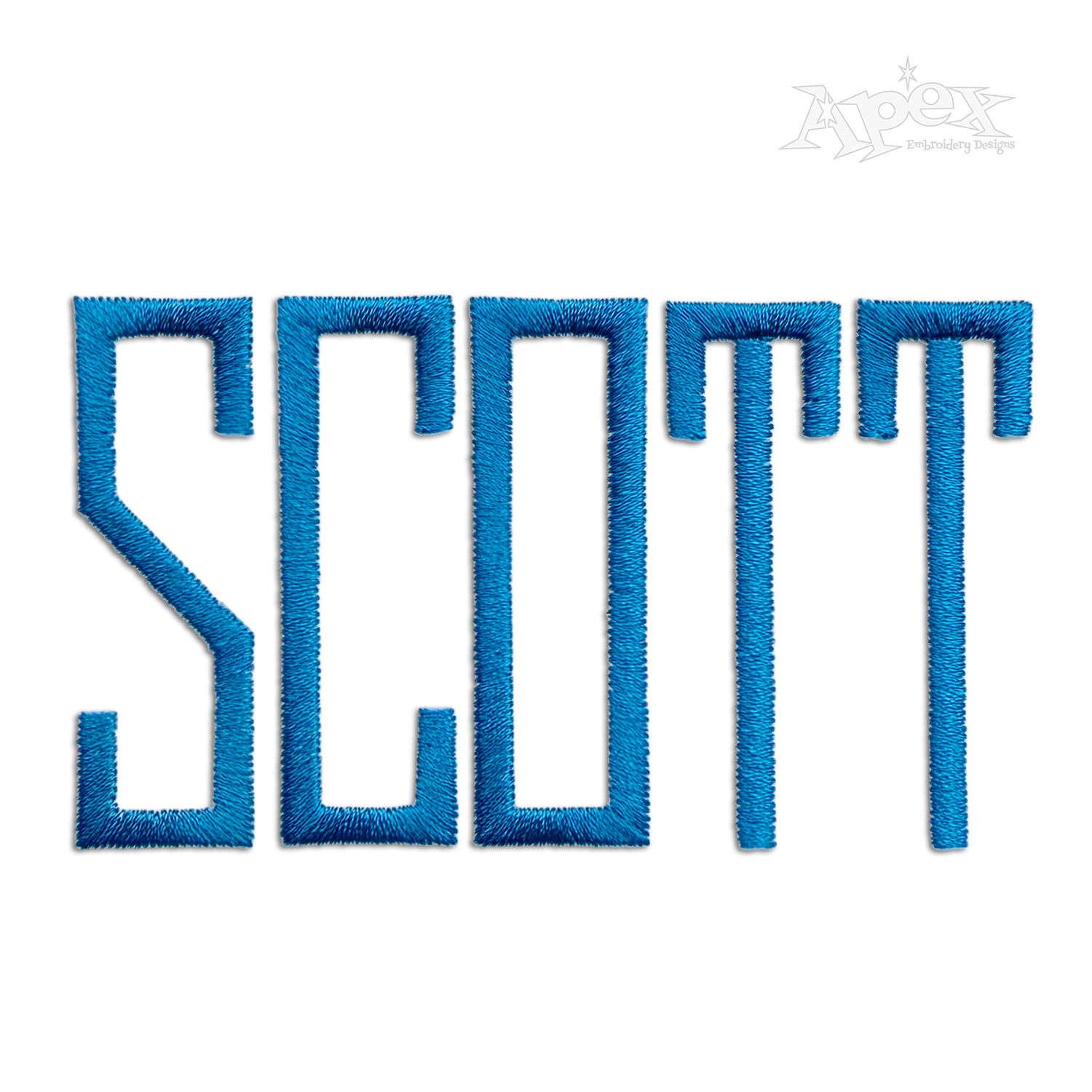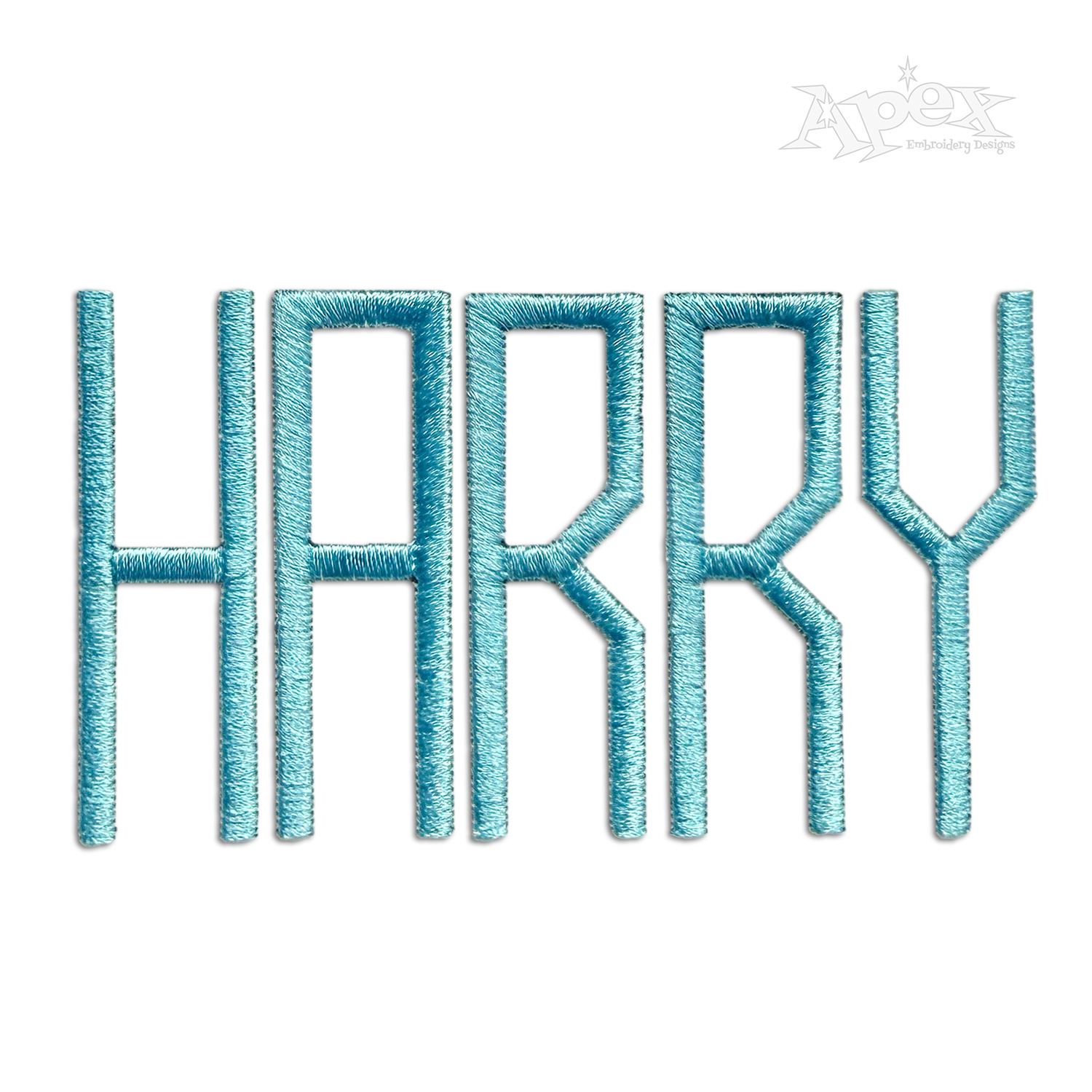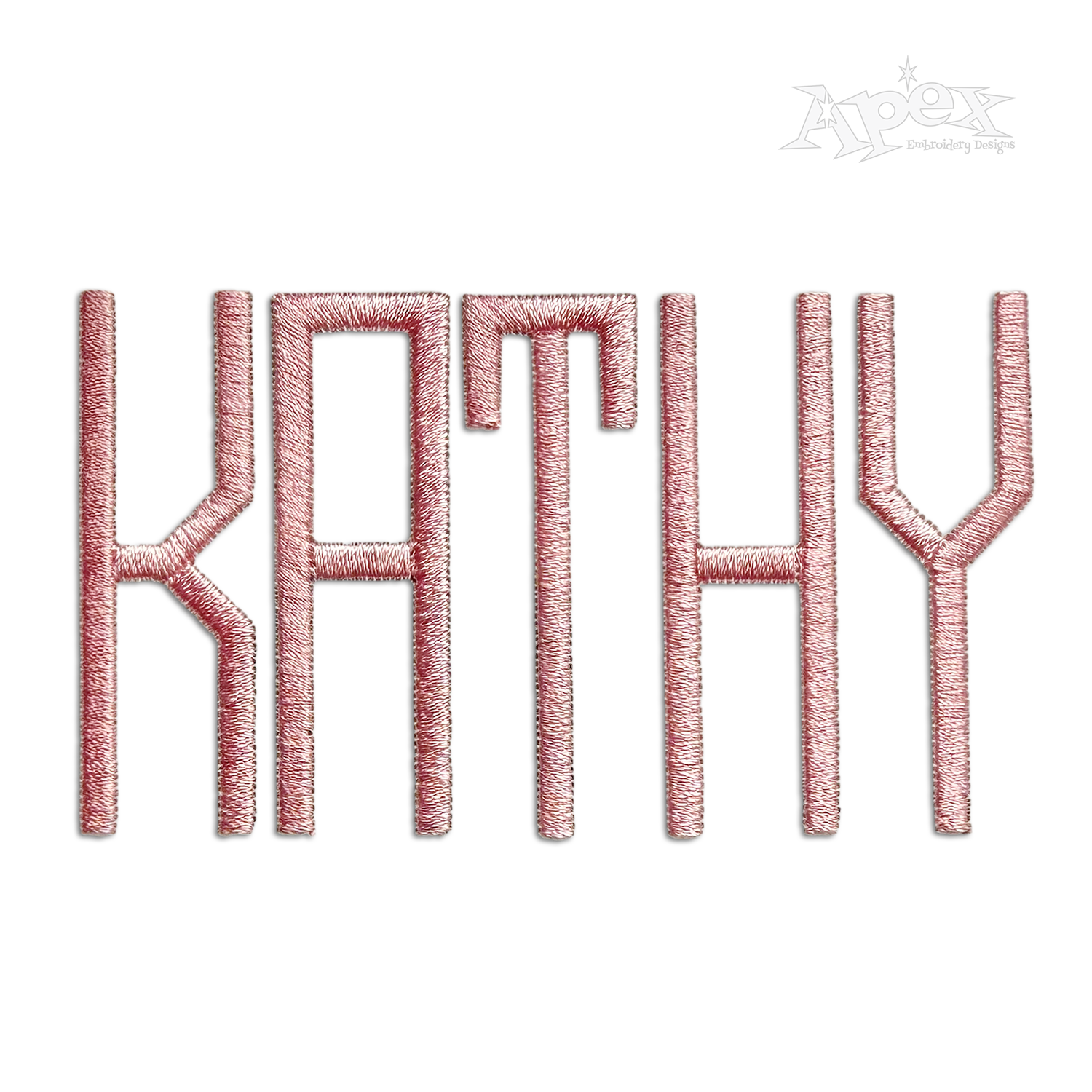
Mens Embroidery Font
There is an understated confidence in a silhouette stripped down to its leanest, purest lines. When drafting the Mens Embroidery Font at the Apex studio, our vision was sparked by the tailored precision of bespoke menswear and the crisp, utilitarian lettering of vintage collegiate gear. We set out to bypass fussy flourishes in favor of an athletic, architectural letterform?tall, upright, and impeccably balanced. Each letter rises with deliberate verticality, creating a modern satin stitch typography that feels just as commanding on a heavy canvas duffel as it does refined on a crisp linen handkerchief or tailored Oxford cuff.
Digitized with meticulous precision, this alphabet collection delivers bold readability in a condensed, space-conscious footprint:
- 2.2 Inch Uppercase Alphabet: Full A?Z uppercase letterforms calibrated at a 2.2-inch vertical height, ideal for bold standout initials and condensed monograms.
Project Ideas for Mens Embroidery Font
The disciplined geometry and tall, condensed aesthetic of this typography make it exceptionally versatile across everyday accessories, athletic goods, and masculine heirloom gifts:
- Youth & Collegiate Backpacks: Personalize front pockets, top utility flaps, or strap panels on rugged nylon and canvas school satchels with high-contrast initials.
- Travel Gear & Dopp Kits: Elevate waxed canvas wash bags, leather-trimmed weekenders, and garment bags with handsome personalized gifting accents.
- Golf Towels & Clubhouse Accessories: Stitch clean, recognizable monograms onto waffle-weave towels, scorecard holders, and shoe bags.
- Layered Outerwear & Athleisure: Apply bold center-chest marks or subtle pocket crests to quarter-zips, fleece pullovers, and casual varsity warm-ups.
- Bespoke Groomsmen Keepsakes: Create coordinated custom gifts, from personalized luggage tags to structured caps and tailored lounge robes.
Because these letterforms feature an elongated vertical orientation, they excel in narrower spaces where wider traditional fonts feel cramped:
- Backpack Utility Flaps: Center the monogram across the lower third of pocket panels, leaving generous breathing room above and below to accentuate the tall letter height.
- Pocket Crest & Left Chest: Position 2.2-inch monograms centered approximately 7 to 9 inches down from the shoulder seam and 3 to 4 inches from the garment center line.
- Vertical Sleeve & Side Placements: Stack initials or spell out short surnames vertically along outer forearm panels or bag side straps for a contemporary athletic look.
- Accessory Diagonal Corners: Angle a single-letter monogram across the bottom right corner of blankets, luggage patches, or golf towels for an intentional designer finish.
Mens Embroidery Font Craft & Letterform Details
The true craft of digitizing a condensed, tall-profile font lies in tension control and column harmony. Because elongated strokes create sweeping parallel lines, any imperfection in stitch density or underlay will compromise the letter's clean integrity. We meticulously engineered each stem with foundational structural underlay to anchor the fabric grain, preventing narrow columns from wavering or sinking into textured weaves.
As your needle travels across the crisp satin stitch alphabet, the density transitions smoothly through sharp corners and clean terminals. Pull compensation is expertly dialed in across every cap height to ensure that straight vertical shafts stitch true without bowing, yielding razor-sharp outlines on sturdy canvas, pique knits, and fine cottons alike. The result is a tactile, lustrous stitchout that honors the timeless spirit of tailored craftsmanship.